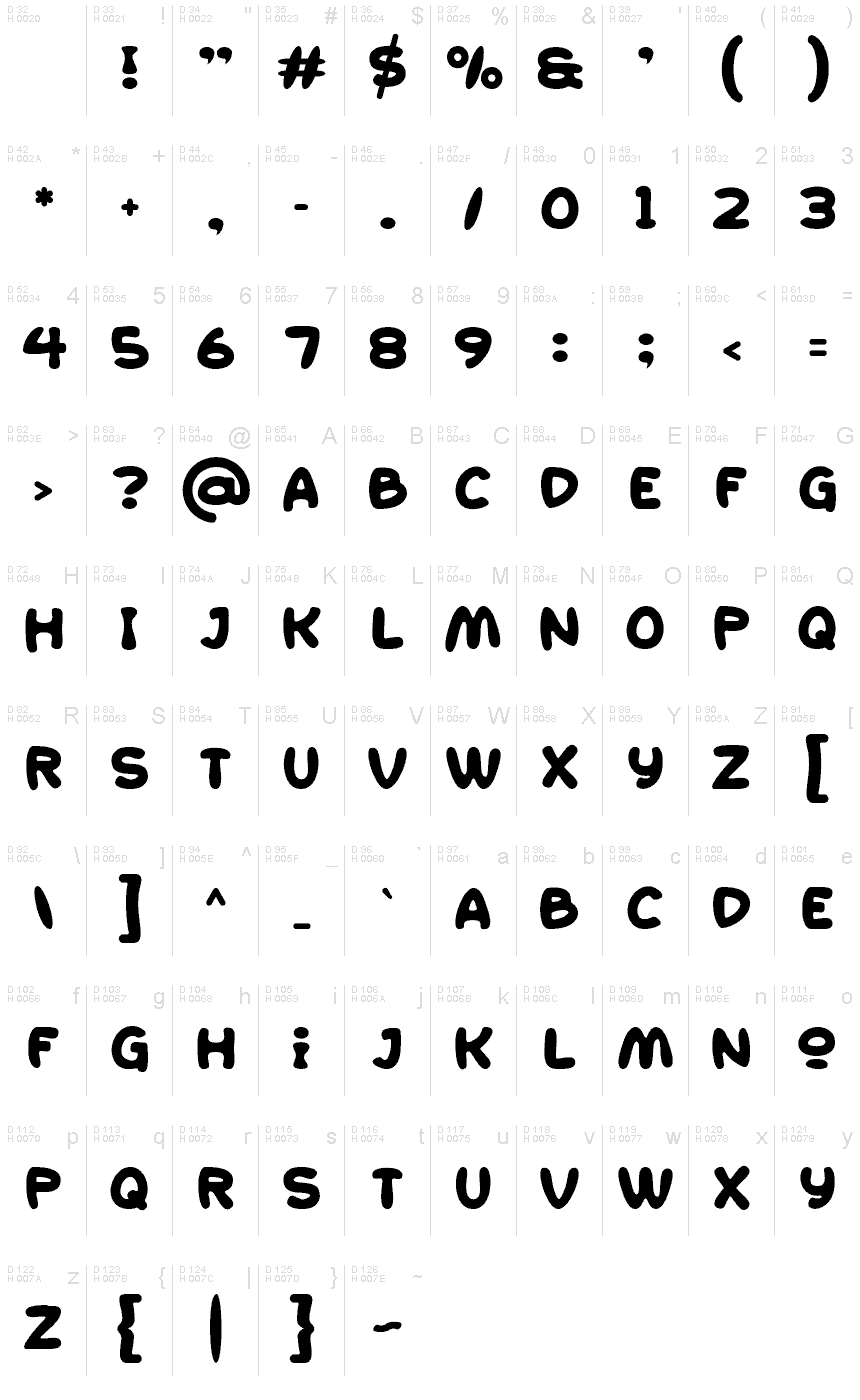
Delion
Delion font by Gilang Ternadho of Maikohatta is a free cartoon display font made with a casual and organic handwriting style. The expressiveness of this bold typeface allows it to capture the attention of audiences every time while retaining a friendly and modern aesthetic. With its excellent readability, such an expressive font is ideal for numerous design tasks.
Examples include posters, signages, packaging design, book covers, headlines, social media posts, presentations, branding projects, school materials, animation frames & visuals for children TV shows.